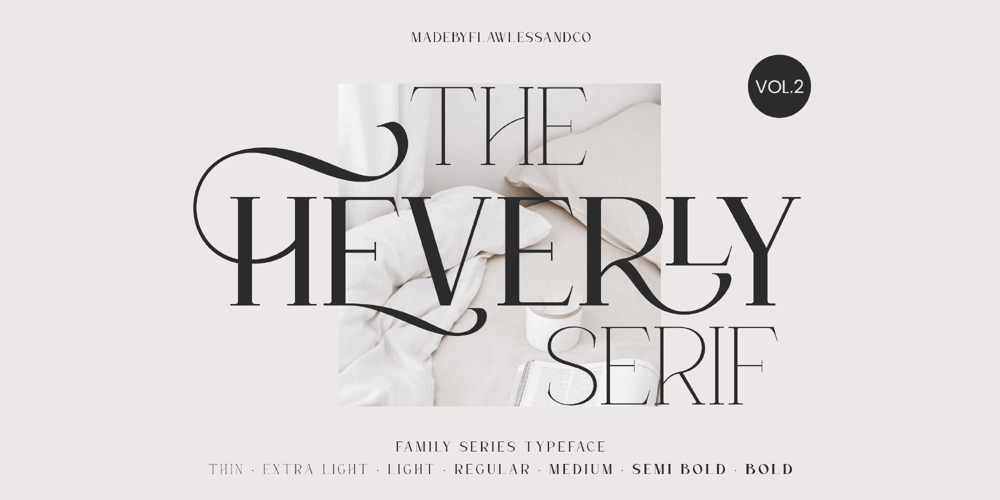
The Heverly Serif Font Family was designed by Achmad Yani and published by Flawlessandco. The Heverly Serif contains 7 styles and family package options. Introducing “The Heverly Family Font”. Dive into the diverse world of typography with “The Heverly Family,” a comprehensive typeface that goes beyond conventional limits. This font family is a symphony of styles, offering Thin, Extra Light, Light, Regular, Medium, Semi-Bold, and Bold variants, allowing you to craft designs that resonate with precision and personality.Explore the Versatility of The Heverly Serif Family Series Font!There’s some connected letters and some alternates that suitable for any graphic designs such as branding materials, t-shirt, print, business cards, logo, poster, t-shirt, photography, quotes .etcThis font support for some multilingual. Also contains uppercase A-Z and lowercase a-z, alternate character, numbers 0-9, and some punctuation.If you need help, just write me! Thanks so much for checking out my shop!